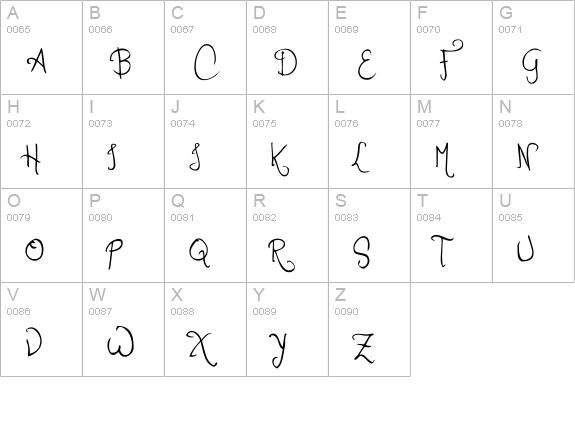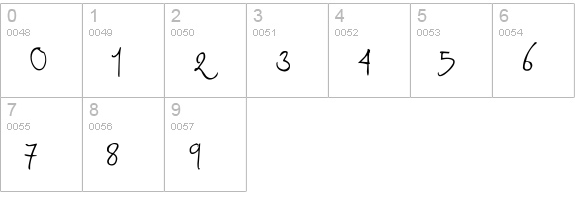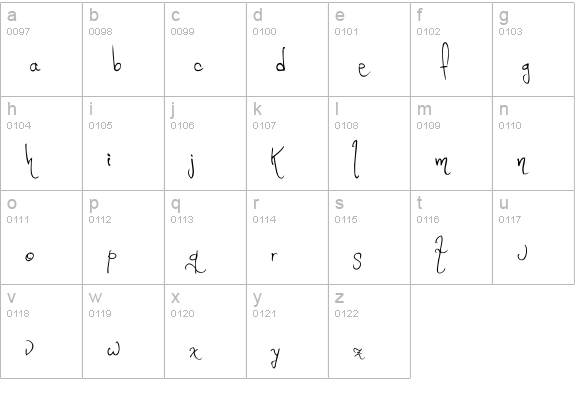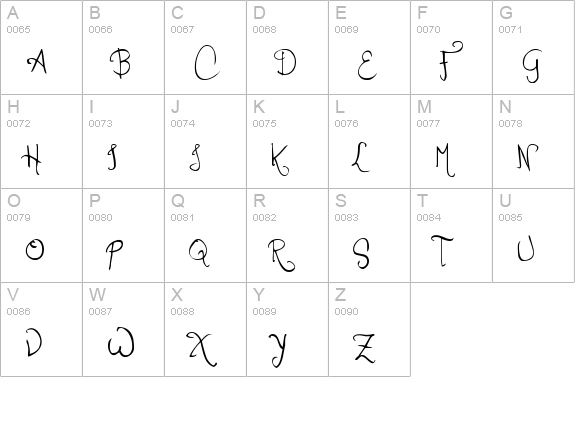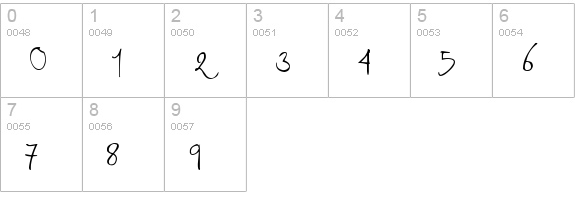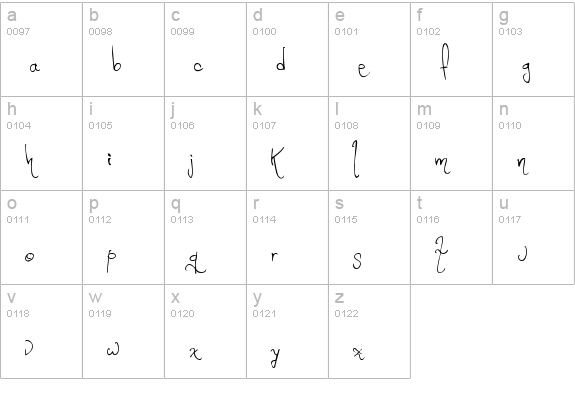
Romance Fatal W1G font is a stunning display font that exudes elegance and romance. Its intricate, delicate letterforms are reminiscent of a passionate love story, evoking a sense of enchantment and allure. This font is perfect for adding a touch of romance to any design project, whether it's a wedding invitation, a love letter, or a romantic poster. With its flowing curves and graceful strokes, Romance Fatal W1G font captures the essence of true love and desire. Each letter is carefully crafted with intricate details, making it a truly unique and captivating typeface. The font's timeless beauty and charm will surely make your designs stand out and captivate your audience. What makes Romance Fatal W1G font even more appealing is that it is freely available to download at FontsMarket.com. This means that you can easily add this enchanting font to your collection without breaking the bank. Whether you're a professional designer or someone who simply loves beautiful typography, this font is a must-have in your toolkit. So, why wait? Download Romance Fatal W1G font today and let its romantic vibes sweep you off your feet. With its free availability, there's no reason not to indulge in the elegance and allure of this captivating typeface. Add a touch of romance to your designs and let them speak the language of love with this exquisite font. FontsMarket.com is your go-to destination for all your typography needs, offering a wide range of fonts that are both beautiful and free.